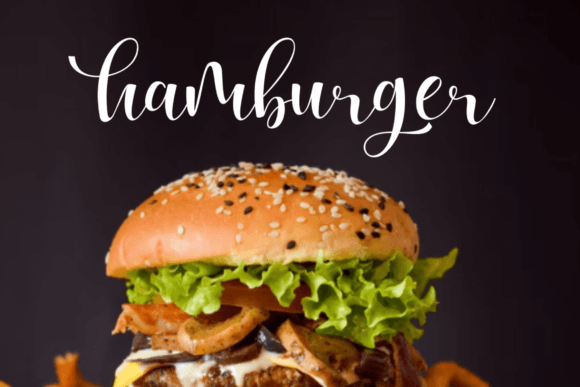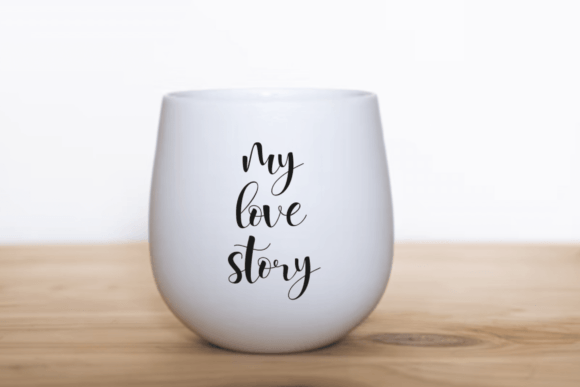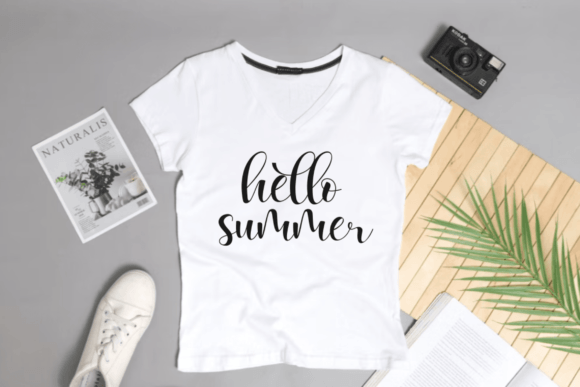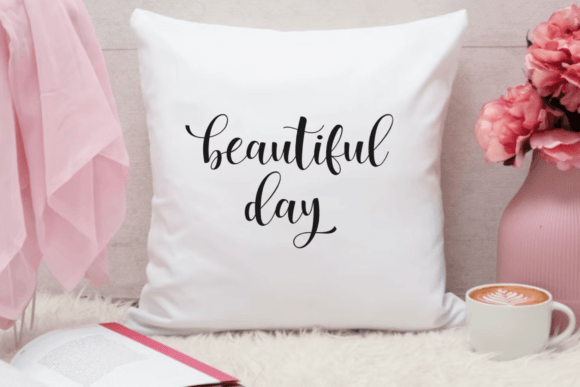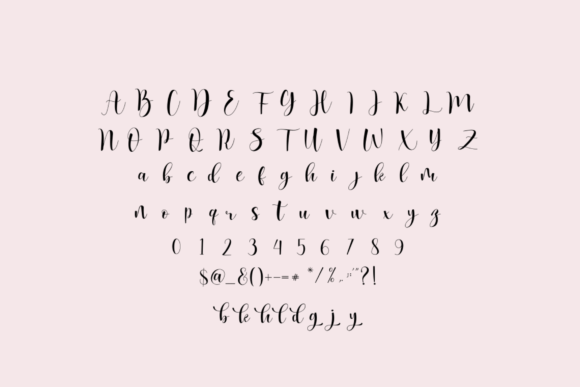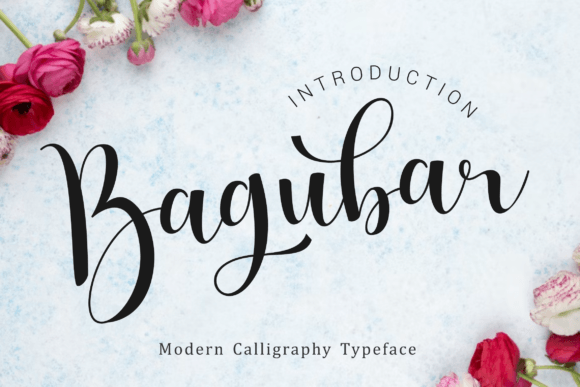
Introducing Bagubar Font: The Ultimate Handwritten Font for Creative Projects
Are you a designer or crafter looking for a unique and authentic handwritten font to elevate your branding projects? Look no further than Bagubar Font! This bold and eye-catching font is perfect for creating stunning logos, t-shirt designs, and more. In this article, we’ll dive into the features and benefits of Bagubar Font, and explore how it can take your creative projects to the next level.
What is Bagubar Font?
Bagubar Font is a carefully crafted handwritten font that exudes a sense of authenticity and personality. Its bold and expressive strokes make it perfect for creating eye-catching designs that stand out from the crowd. Whether you’re working on a logo, t-shirt design, or any other branding project, Bagubar Font is sure to make a lasting impression.
Key Features of Bagubar Font
- Bold and Authentic: Bagubar Font features bold and authentic handwritten strokes that give your designs a unique and personal touch.
- Highly Versatile: This font is suitable for a wide range of contexts, from logos and t-shirt designs to posters, flyers, and more.
- Easily Readable: Despite its bold nature, Bagubar Font is surprisingly easy to read, making it perfect for designs that require a clear and concise message.
- Unique Character Set: Bagubar Font features a unique character set that includes a range of letters, numbers, and punctuation marks.
Benefits of Using Bagubar Font
- Stand Out from the Crowd: With its bold and authentic strokes, Bagubar Font is sure to make your designs stand out from the competition.
- Save Time and Effort: With Bagubar Font, you can create stunning designs in no time. Its easy readability and versatility make it perfect for a wide range of projects.
- Perfect for Branding: Bagubar Font is specifically designed with branding in mind. Its unique character set and bold strokes make it perfect for creating memorable logos and designs.
In conclusion, Bagubar Font is a bold and authentic handwritten font that’s perfect for any creative project. Its versatility, readability, and unique character set make it a must-have for designers and crafters. Whether you’re working on a logo, t-shirt design, or any other branding project, Bagubar Font is sure to make a lasting impression. So why wait? Download Bagubar Font today and take your creative projects to the next level!